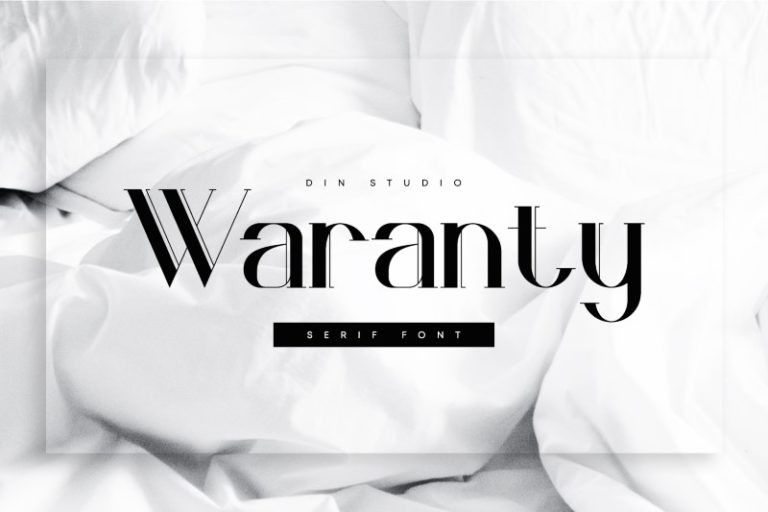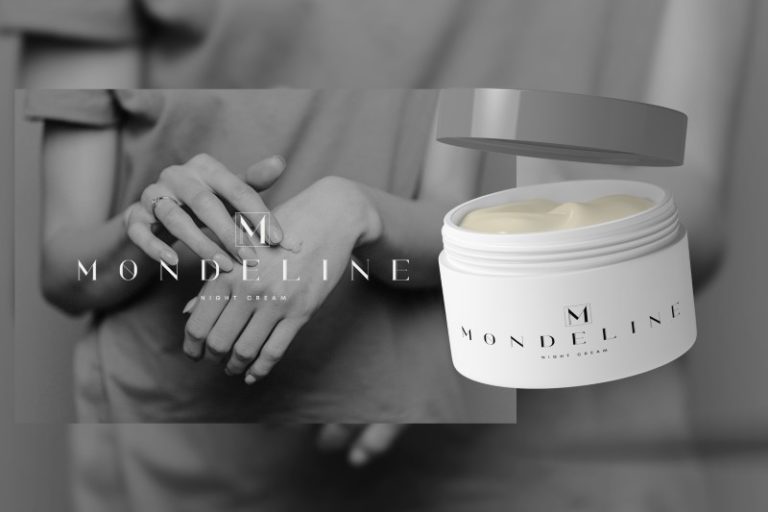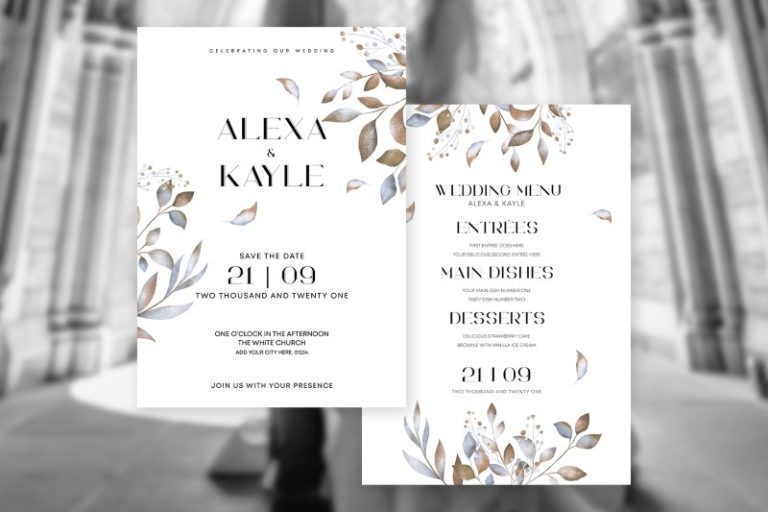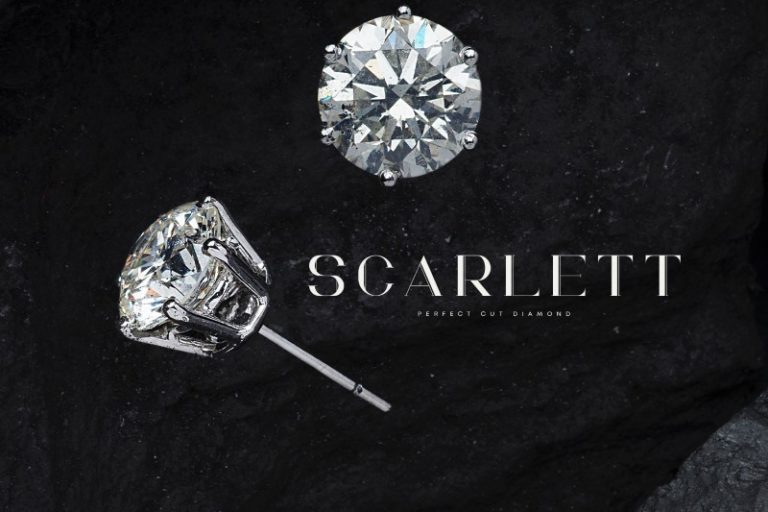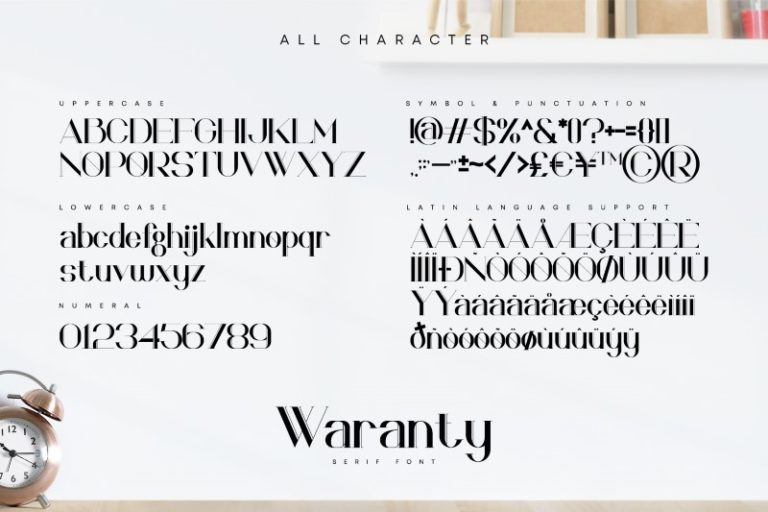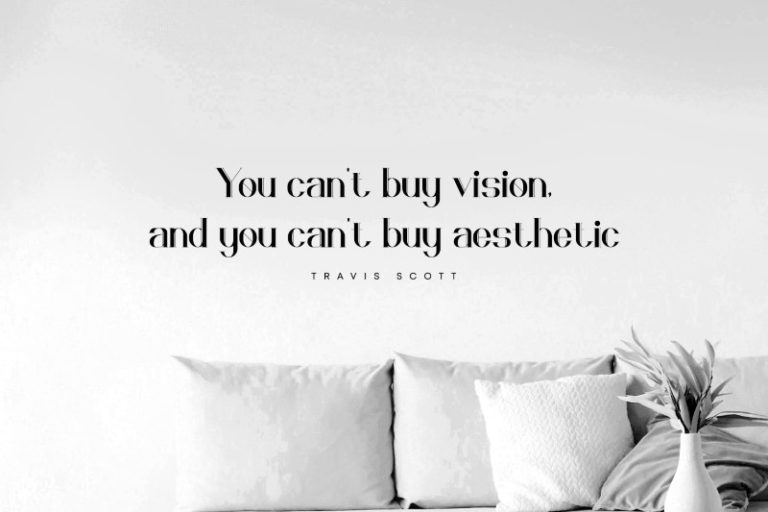
Waranty – Elegant Serif Font
Waranty
Waranty is an elegant serif font made for any professional project brandings which is best used for logos, brandings, and quotes. Every letter has a unique and beautiful touch. See the previews above to get some inspiration on how you can use them. Happy Designing!
Afrikaans, Albanian, Asu, Basque, Bemba, Bena, Breton, Catalan, Chiga, Cornish, Danish, Dutch, English, Faroese, Filipino, Friulian, Galician, German, Gusii, Indonesian, Irish, Italian, Kabuverdianu, Kalenjin, Kinyarwanda, Luo, Luxembourgish, Luyia, Machame, Makhuwa-Meetto, Makonde, Malagasy, Manx, MorisyenNorth Ndebele, Norwegian Bokmål, Norwegian Nynorsk, Nyankole, Oromo, Portuguese, Quechua, Romansh, Rombo, Rundi, Rwa, Samburu, Sango, Sangu, Scottish Gaelic, Sena, Shambala, Shona, Soga, Somali, Spanish, Swahili, Swedish, Swiss German, Taita, Teso, Uzbek (Latin), Vunjo, Zulu